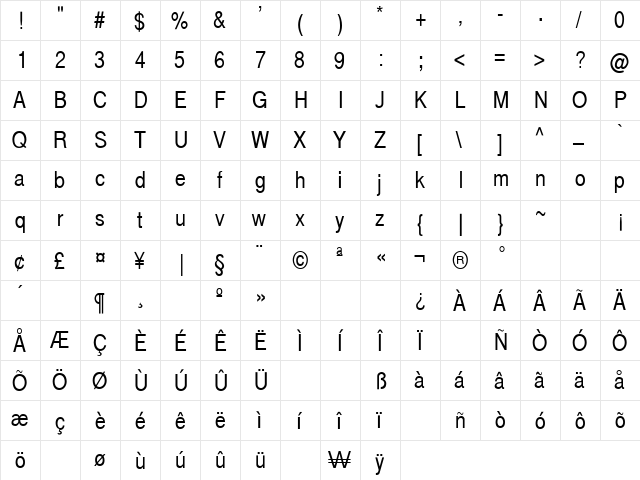
Helvetique Narrow Regular
Design Context for Helvetique Narrow Typeface
Helvetique Narrow takes a measured approach to typography — its balanced proportions and neutral character make it a reliable workhorse for both digital and print work. The condensed width makes it efficient for tight spaces without sacrificing legibility.